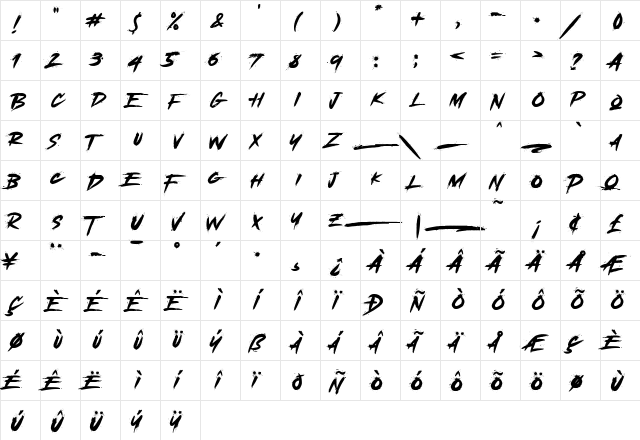
Apocalypse Grunge Regular
Design Context for Apocalypse Grunge Typeface
Apocalypse Grunge embraces imperfection — its rough, textured character adds raw authenticity to designs that want to feel lived-in and unconventional.
Suited to punk-influenced zines, underground music branding, streetwear, and raw, anti-corporate design.
Pro Tip: Pair Apocalypse Grunge with intentionally raw or lo-fi design elements. Fighting against it with overly polished surroundings will undermine its personality.